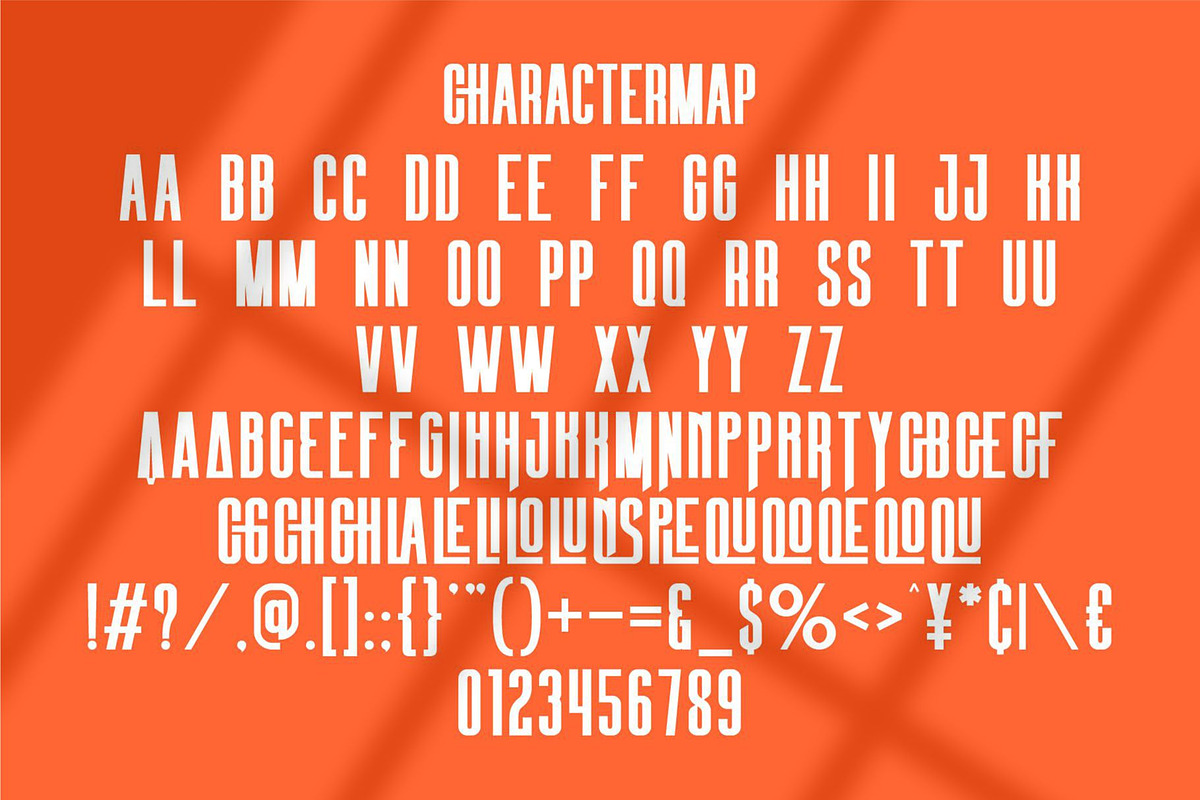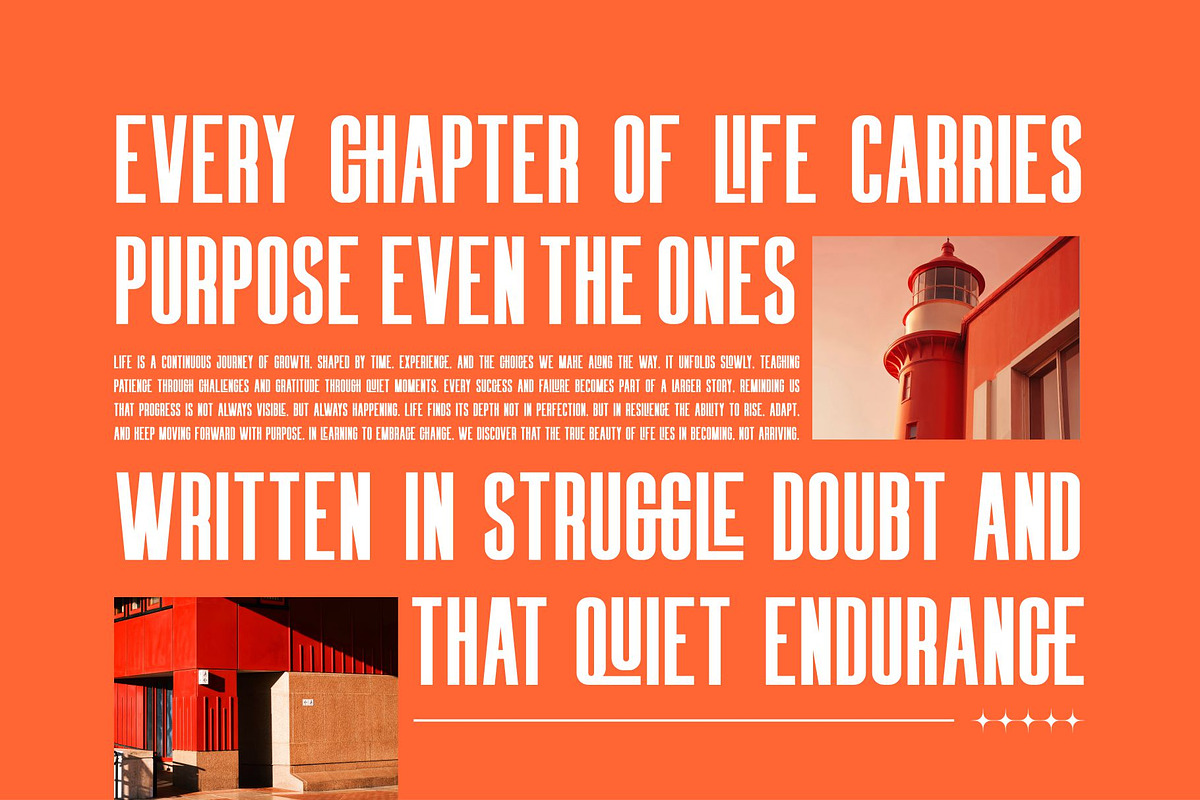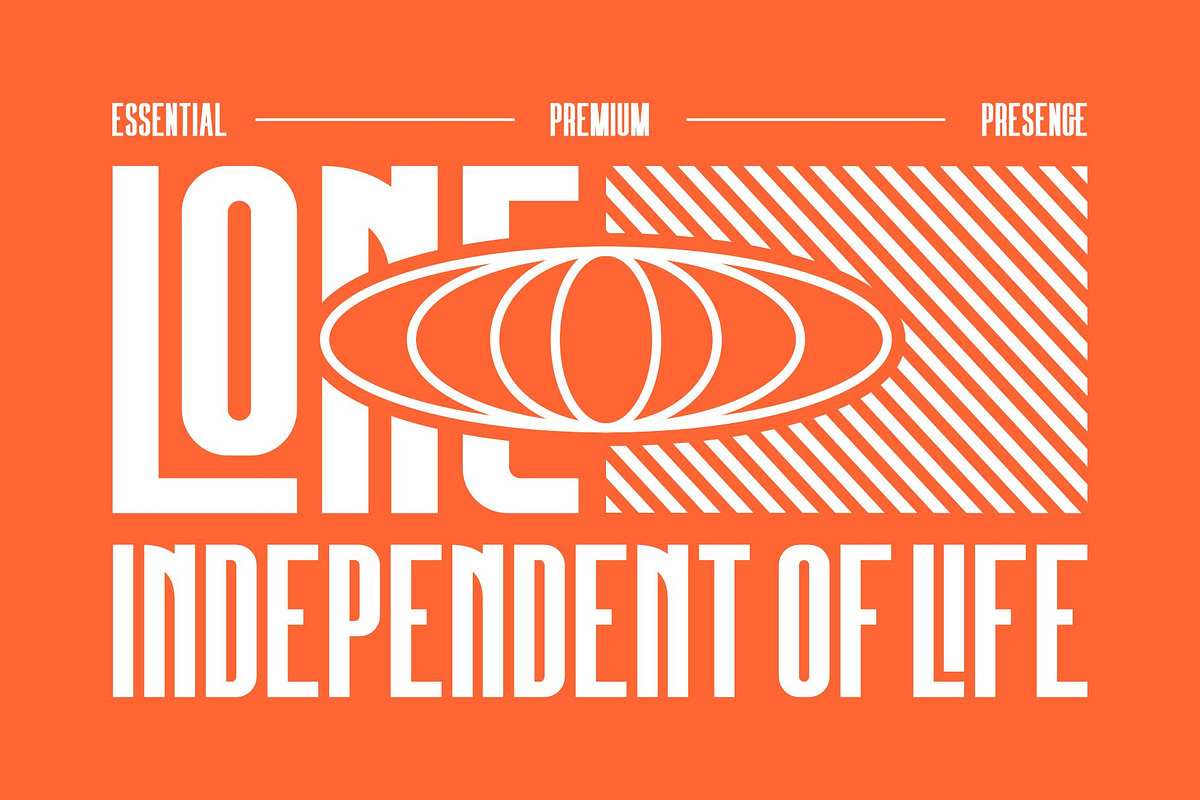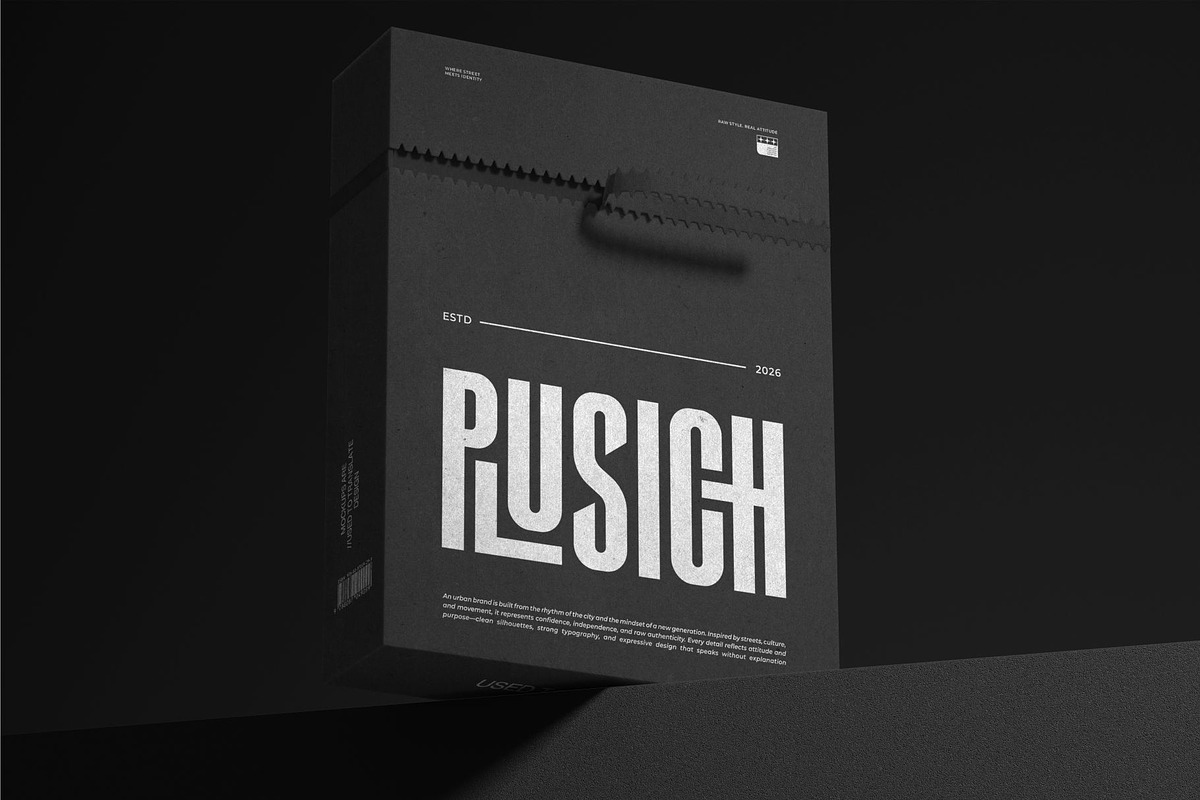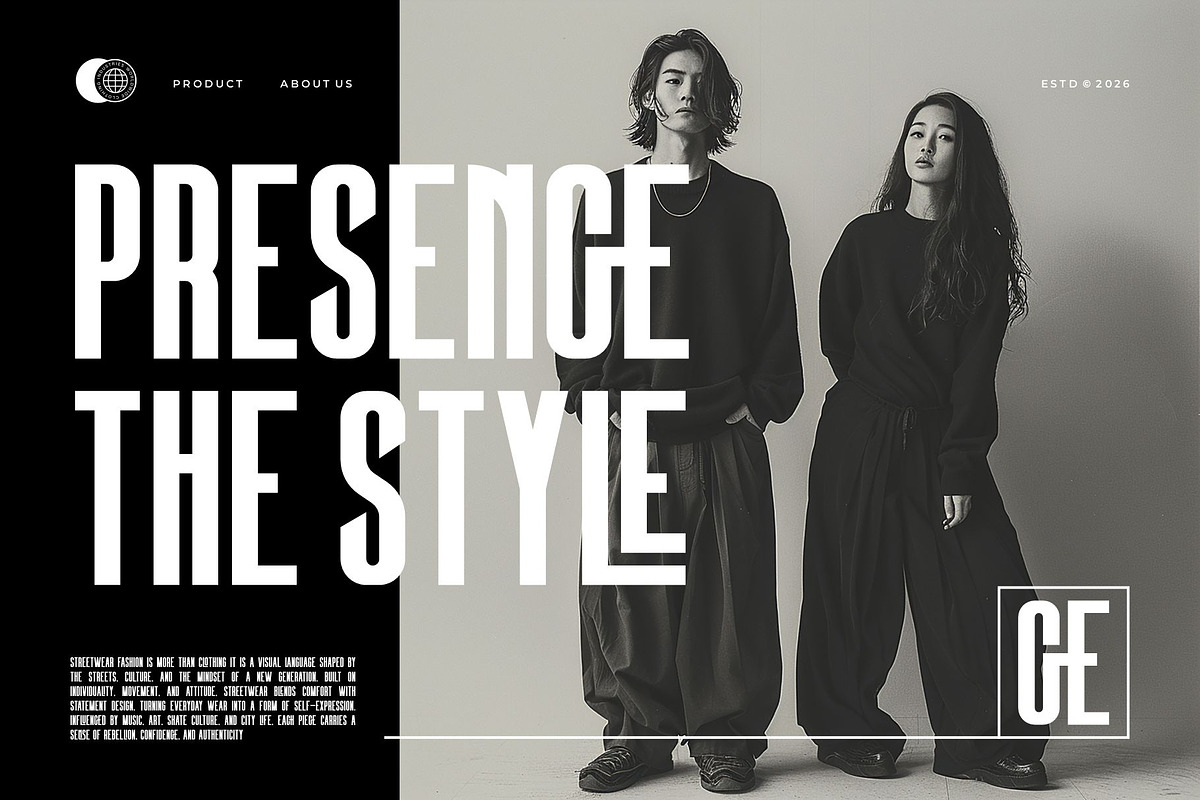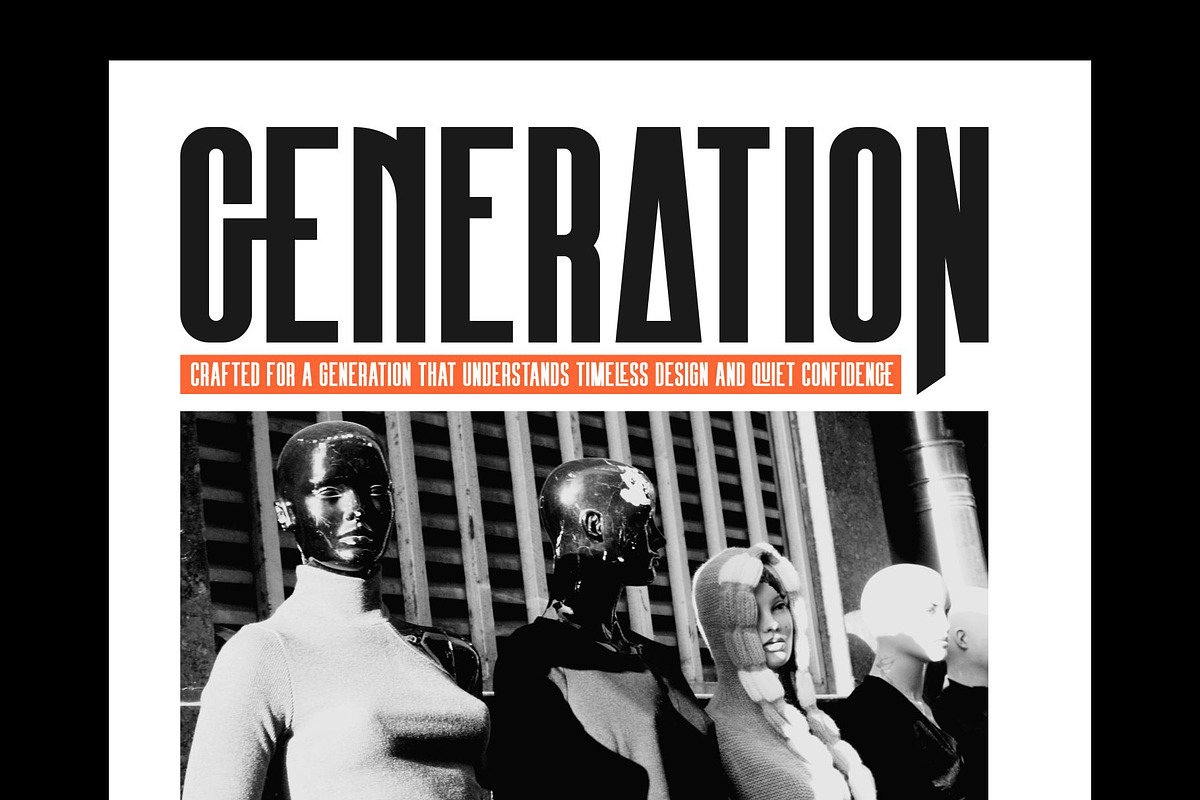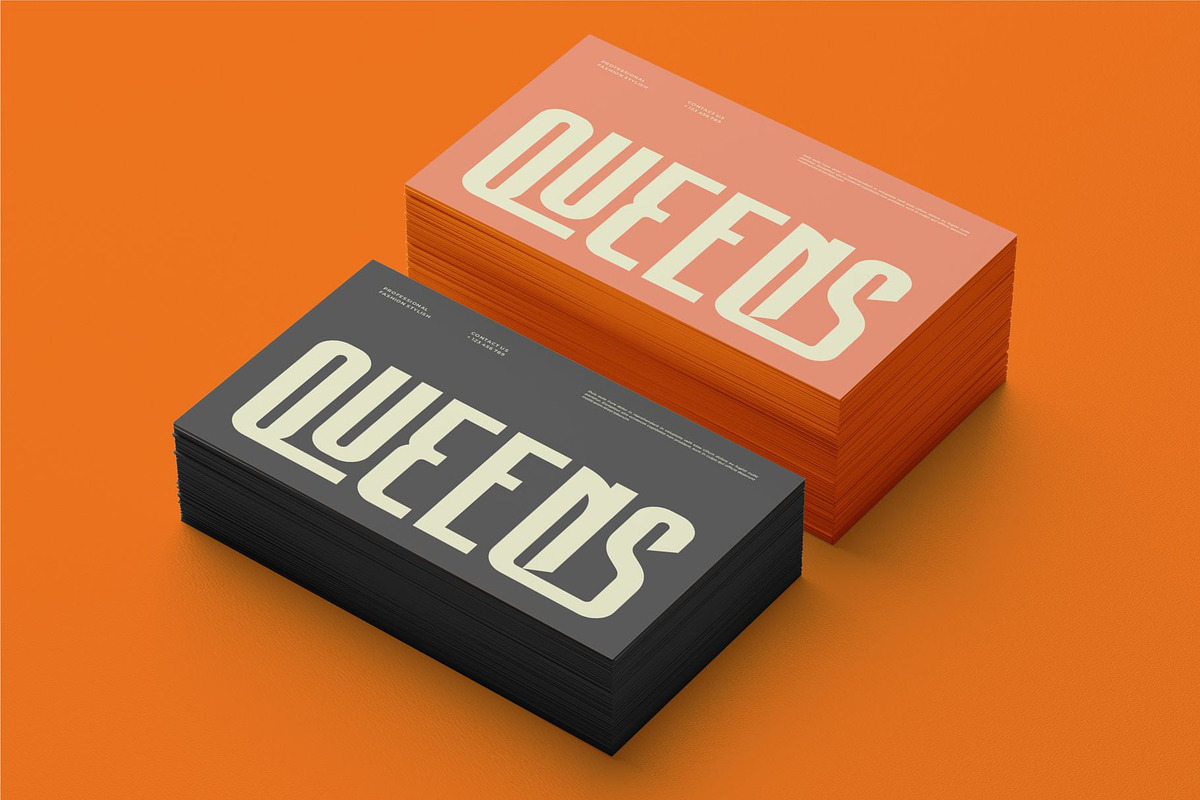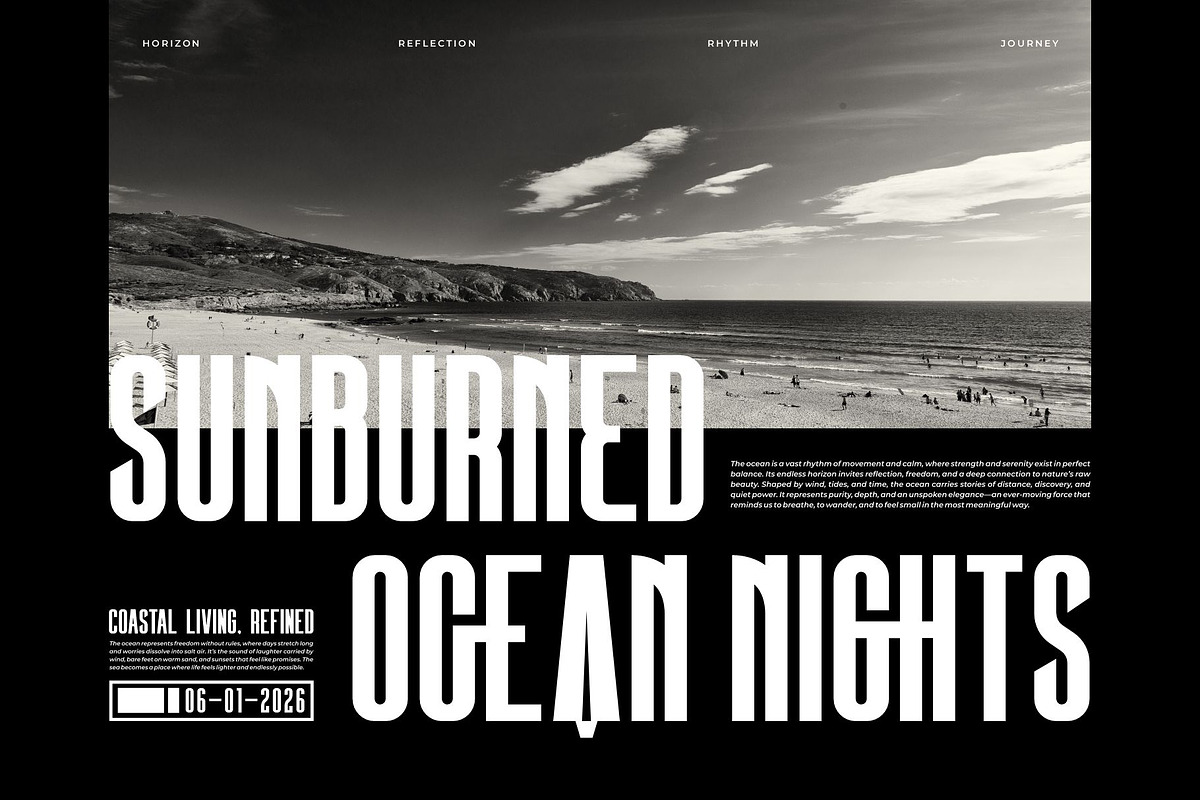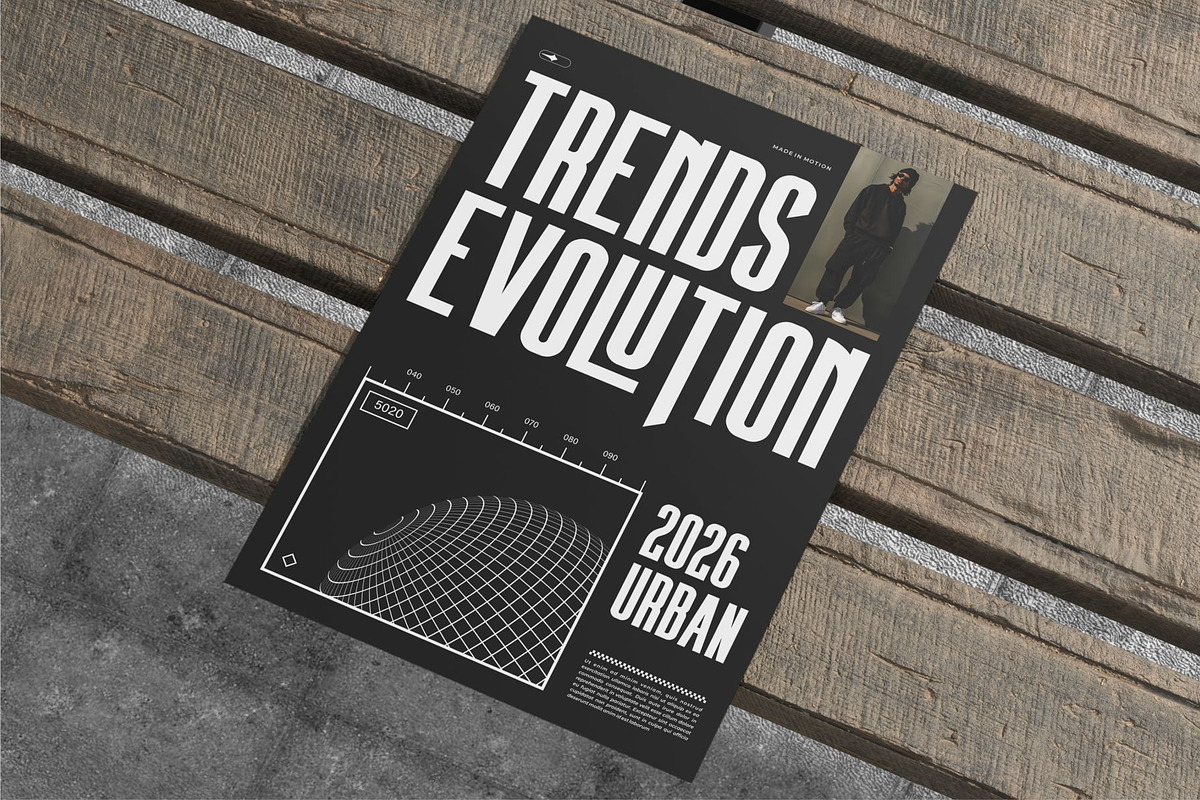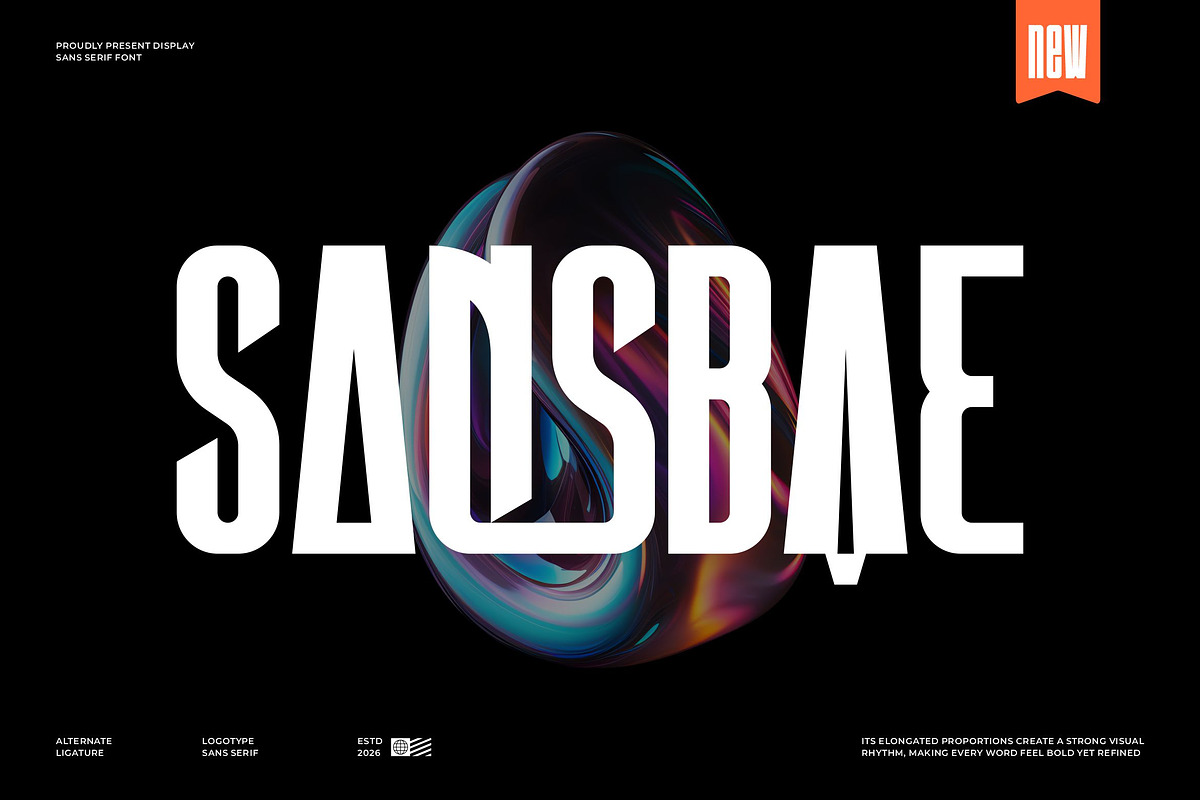
Sansbae || Modern Futuristic Display
Sansbae condensed display is a modern and futuristic font type for all branding and logo designs. This modern and futuristic display font has a beautiful character. This font is suitable for invitation card designs, cool logos, movie titles, movie names, business cards, book titles, brand names, and various other designs. Sansbae condensed display is a smooth display font that exudes sophistication and the moment. Its stylish ligatures make this font a perfect partner for any project.